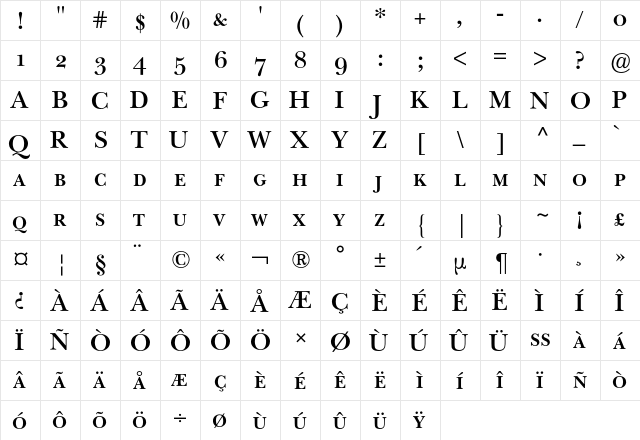
New Baskerville Expert BQ Regular Font Preview
New Baskerville Expert BQ Regular
Design Context for New Baskerville Expert BQ Typeface
New Baskerville Expert BQ is a composed and adaptable typeface that performs quietly and consistently across a wide range of design contexts.